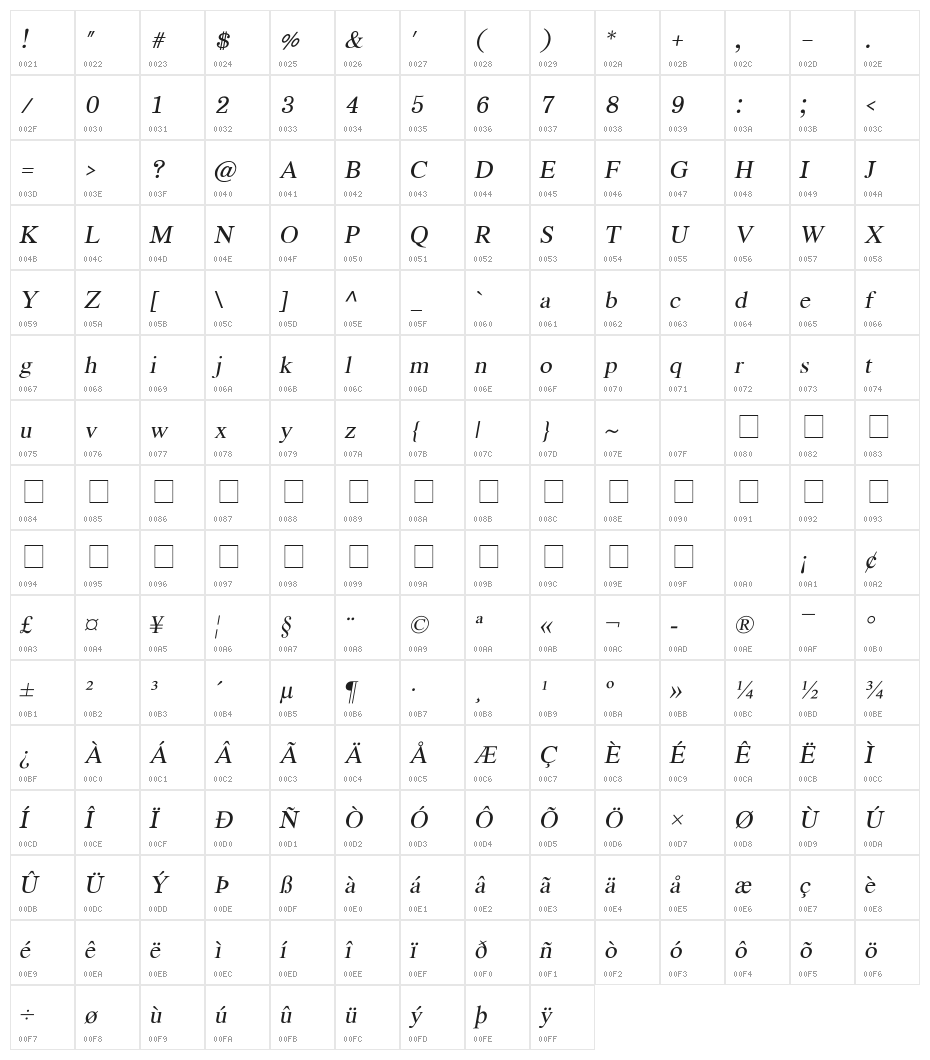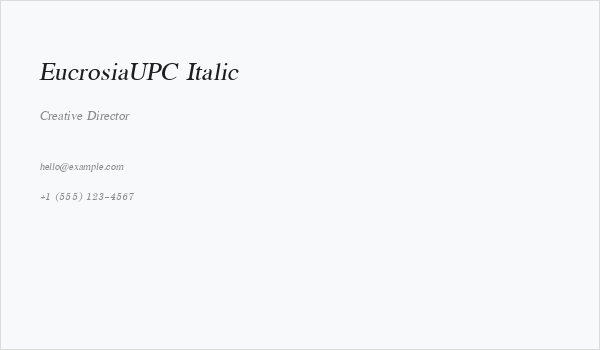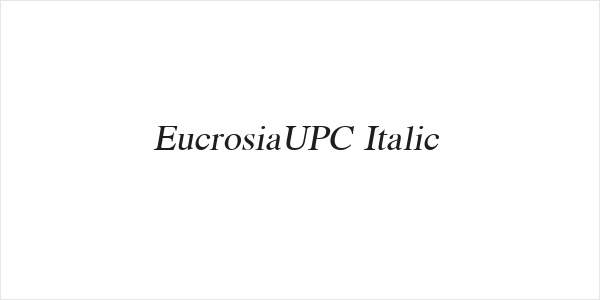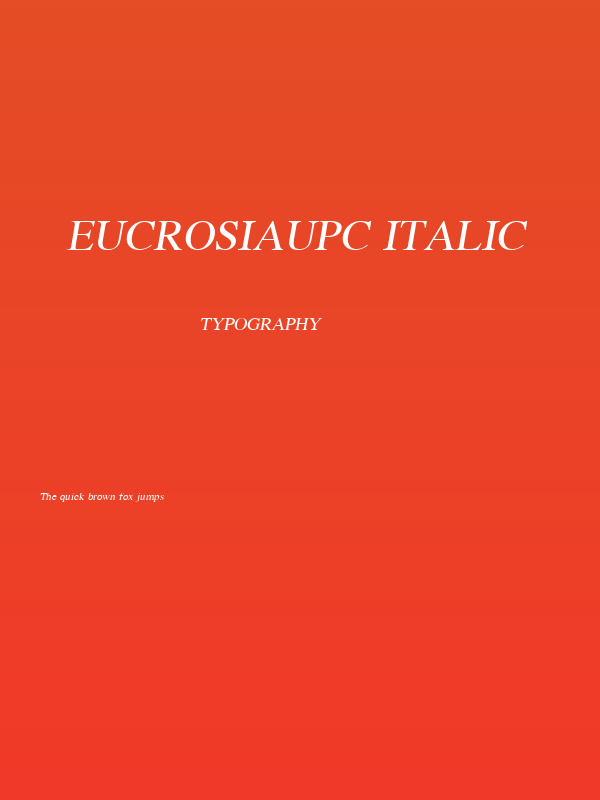
EucrosiaUPC Italic Font
EucrosiaUPC Italic Description
This elegant typeface features a classic italic style with smooth, flowing curves and a refined appearance. The letters are slightly slanted, giving a sense of motion and sophistication. The uppercase characters are tall and commanding, while the lowercase letters maintain a consistent rhythm and balance. The numerals are clear and legible, complementing the overall aesthetic. Special characters are well-integrated, maintaining the font's cohesive look. This typeface exudes a timeless charm, making it suitable for a variety of applications.
| Proposed Projects | Ideal for formal invitations, elegant branding, book covers, and editorial design. |